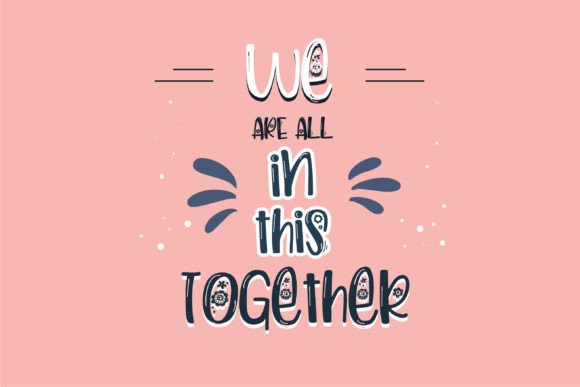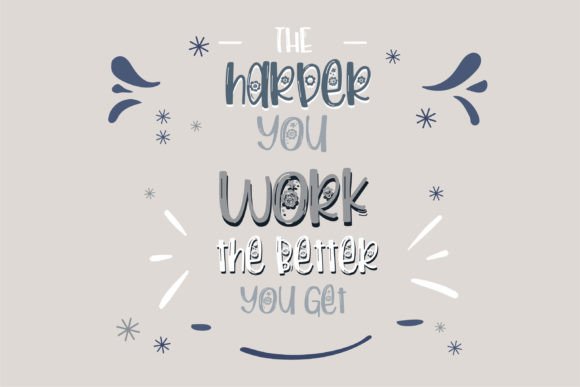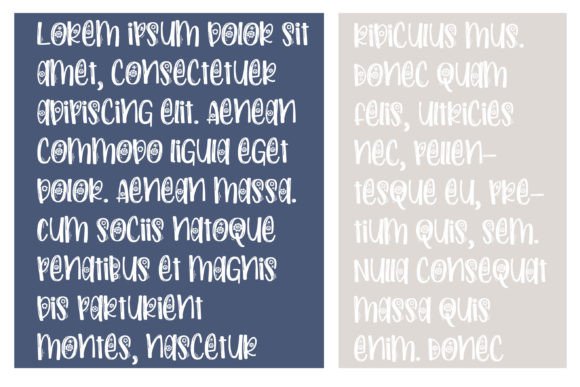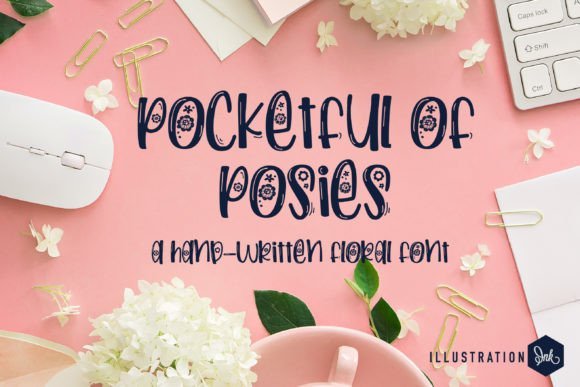
Introduction to Pocketful of Posies Font
Pocketful of Posies is an adorable handwritten font that features dance lines and floral elements.
Key Features of Pocketful of Posies Font